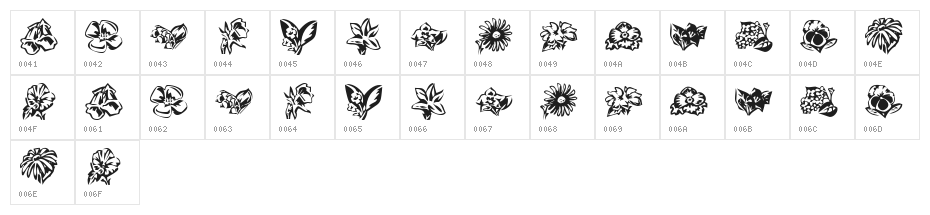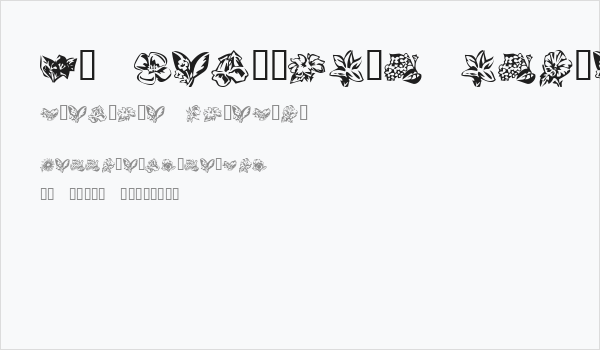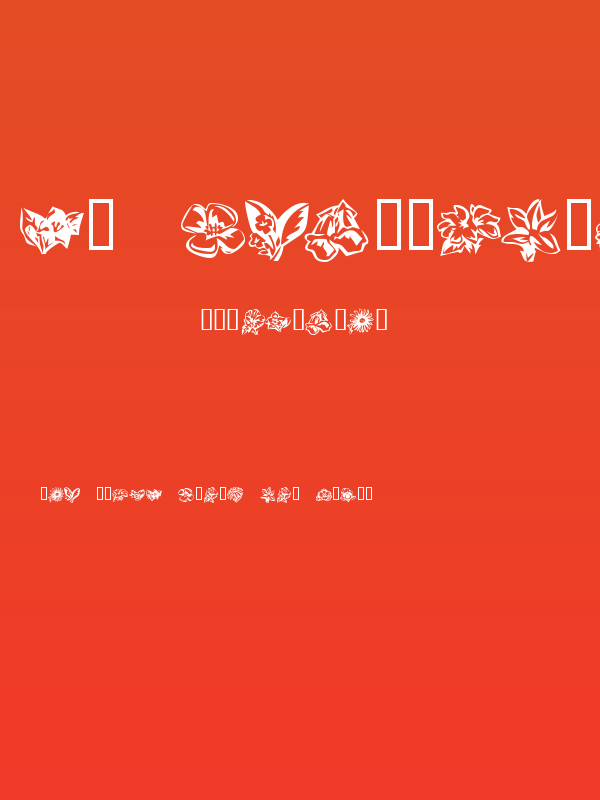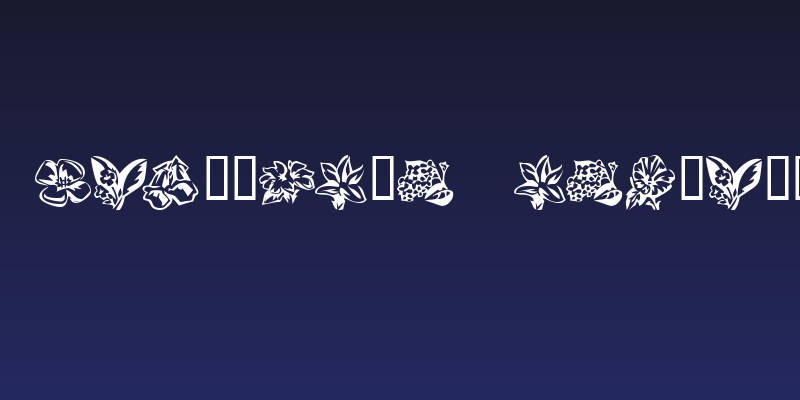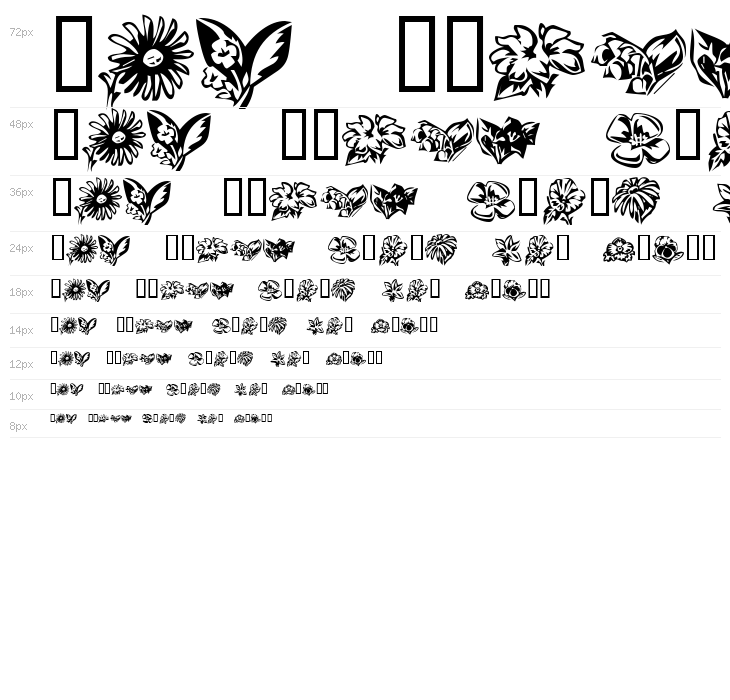
KR Beautiful Flowers 3 Font
KR Beautiful Flowers 3 Description
A decorative dingbat font featuring a variety of stylized black and white flower illustrations, each glyph representing a different floral design with bold outlines and filled shapes.
| Use Case | Decorative elements, icons, embellishments |
| Proposed Projects | Greeting cards, scrapbooking, decorative borders, invitations, craft projects, and digital stickers. |